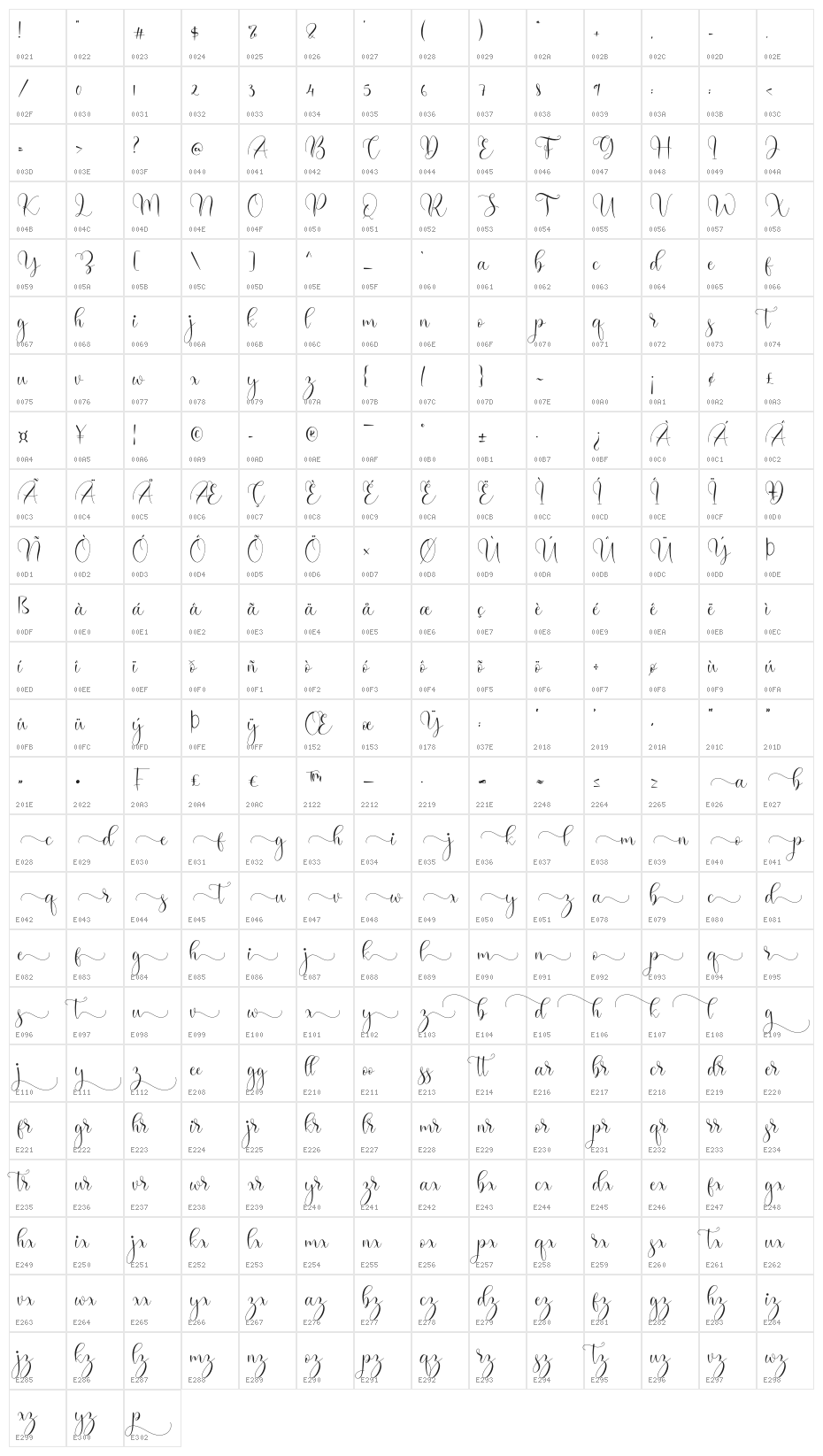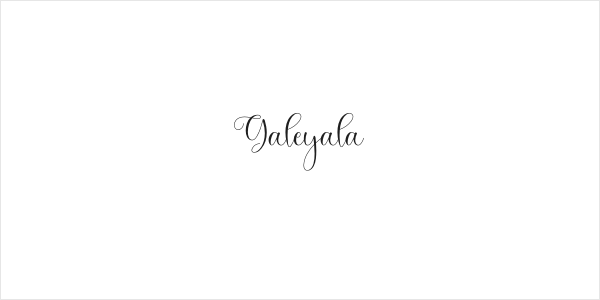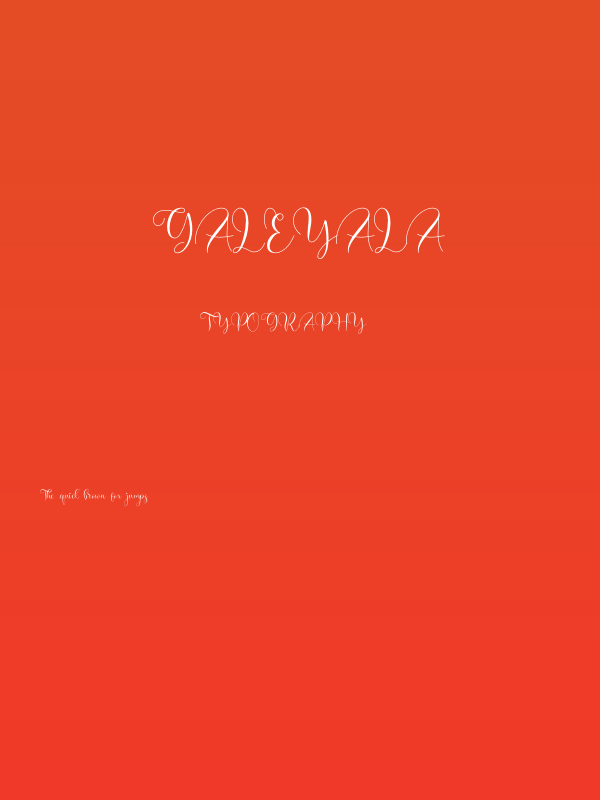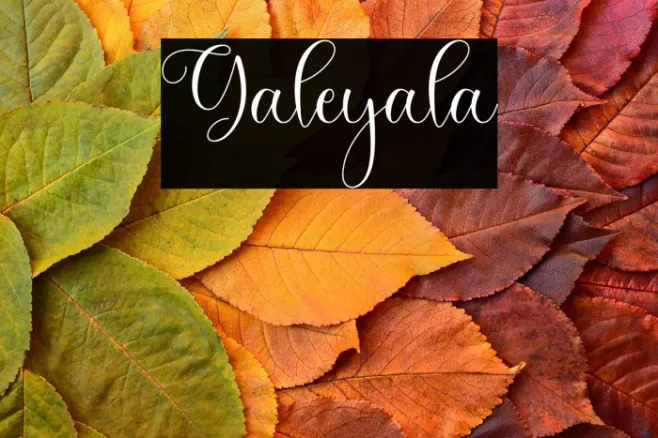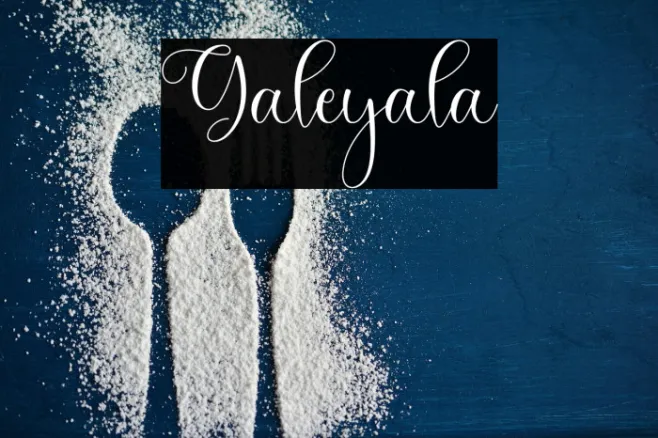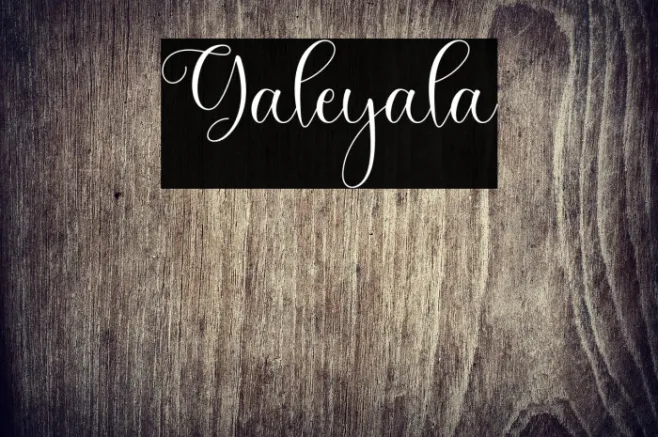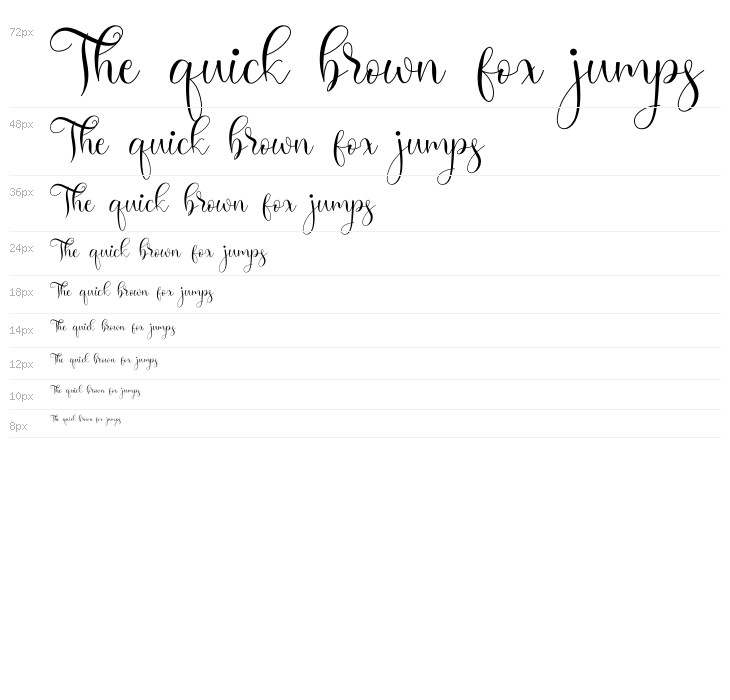
Galeyala Font
Galeyala Description
This elegant script font features a flowing, cursive style with intricate loops and swashes that give it a sophisticated and artistic appearance. The uppercase letters are particularly ornate, with extended flourishes that add a touch of drama and flair. The lowercase letters maintain a consistent style, with smooth curves and a slightly whimsical feel. The numerals are designed to match the overall aesthetic, with a playful yet refined look. Special characters are included, each crafted with the same attention to detail, making this font versatile for various design needs.
| Proposed Projects | Ideal for wedding invitations, elegant branding, greeting cards, and decorative posters. |